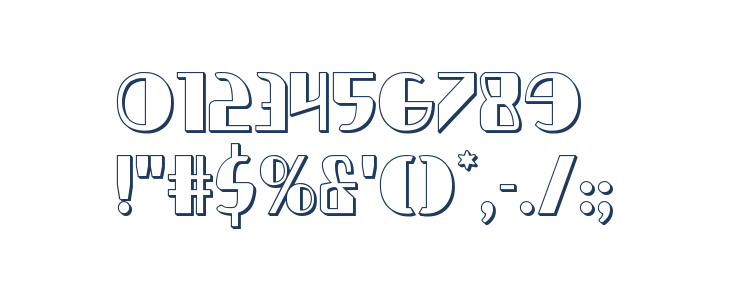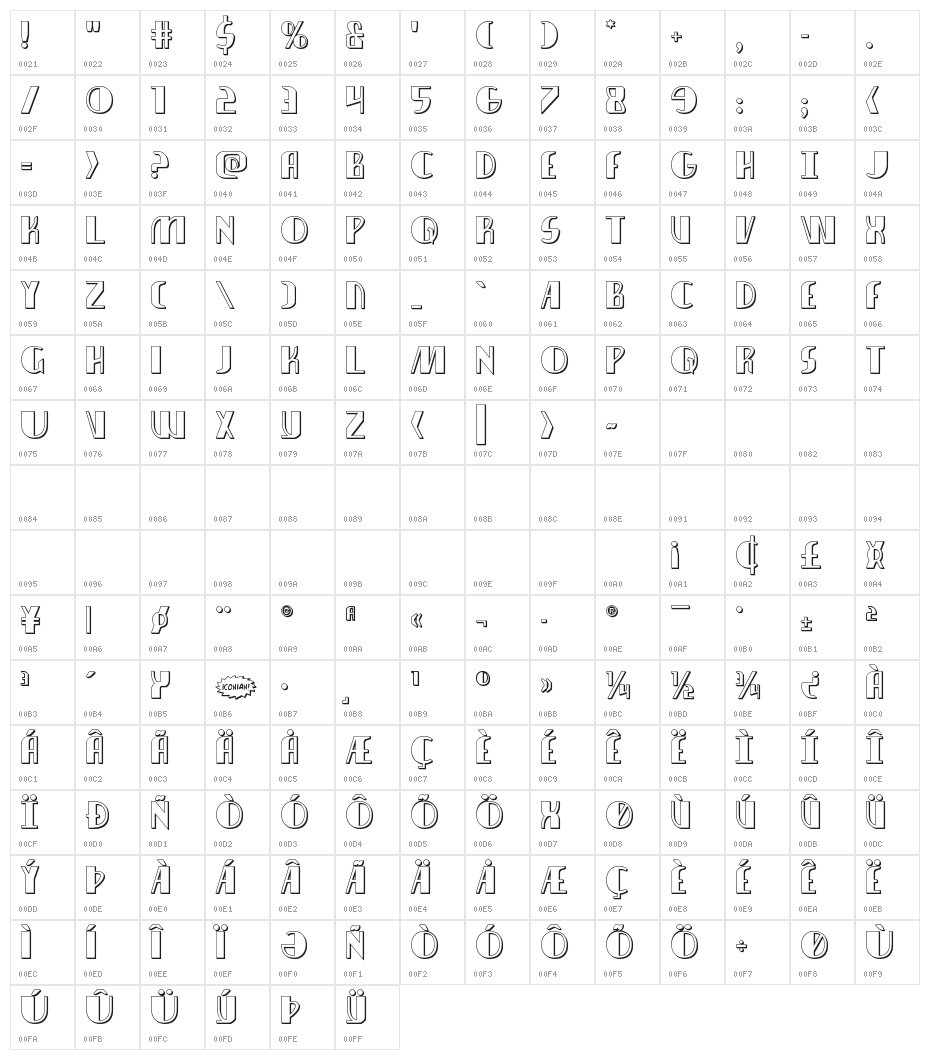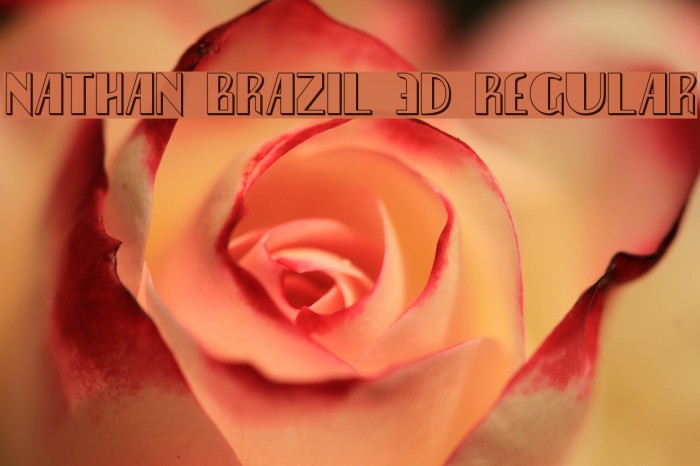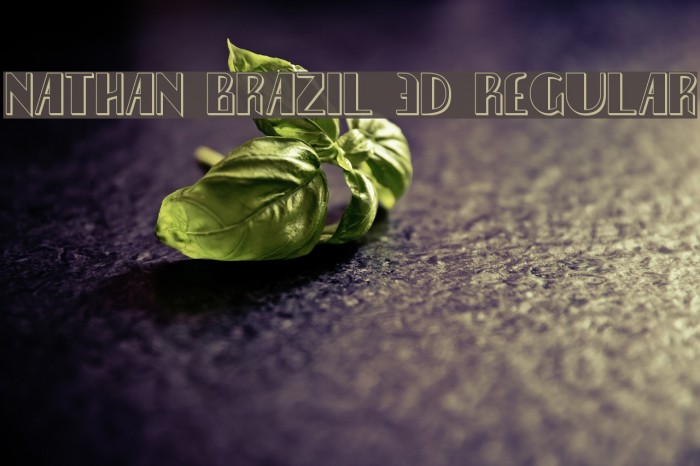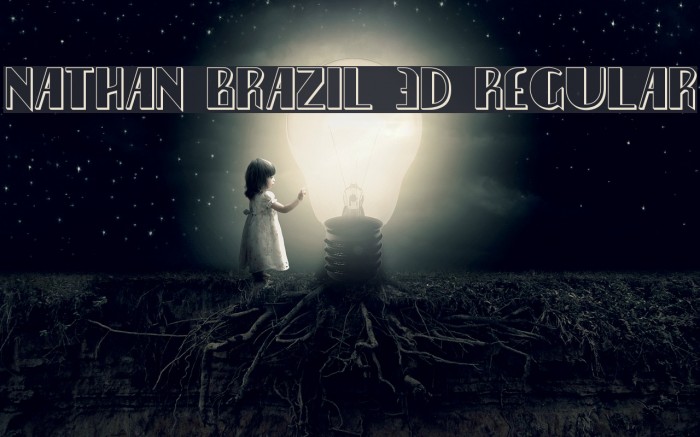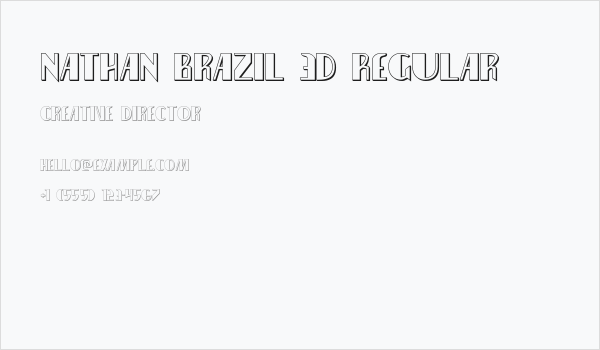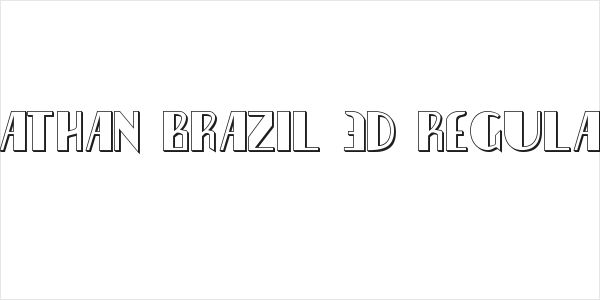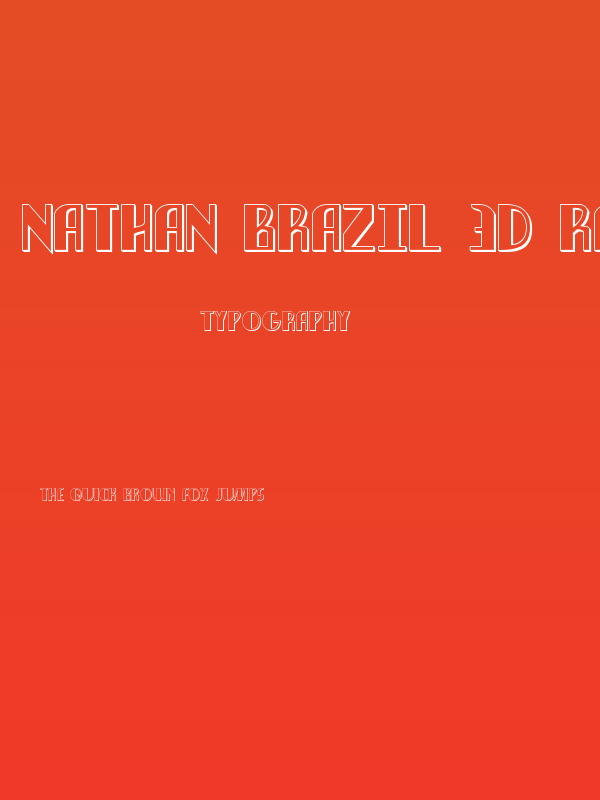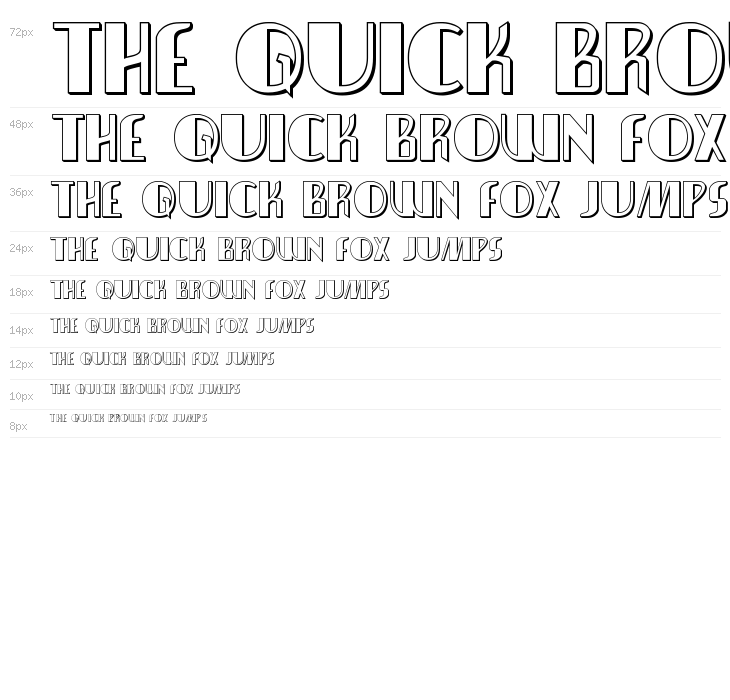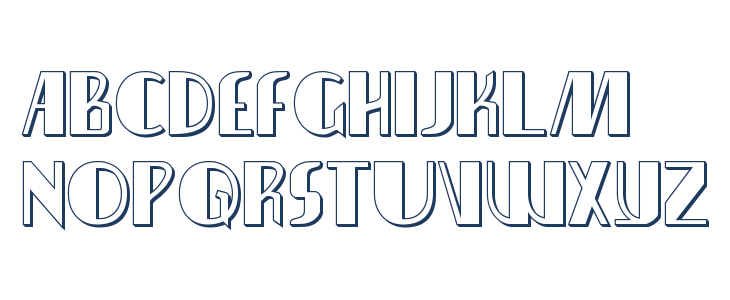
Nathan Brazil 3D Regular Font
Nathan Brazil 3D Regular Description
This font features a bold, three-dimensional style with a distinct outline that gives each character a striking, shadowed appearance. The uppercase letters are designed with sharp angles and clean lines, creating a futuristic and dynamic look. The lowercase letters maintain the same boldness and geometric precision, ensuring consistency throughout the typeface. Numbers and special characters are equally bold and stylized, making them stand out with their unique 3D effect. This font's design is perfect for making a statement, with its eye-catching and modern aesthetic.